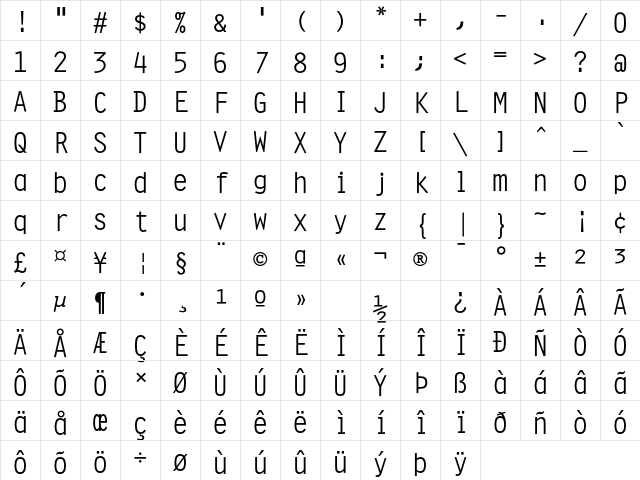
Orator 10 Pitch
Style: 10 Pitch
Complete Orator 10 Pitch glyph index. Displaying only characters natively supported by Orator 10 Pitch font.
Design Context for Orator
Orator is a composed and adaptable typeface that performs quietly and consistently across a wide range of design contexts.